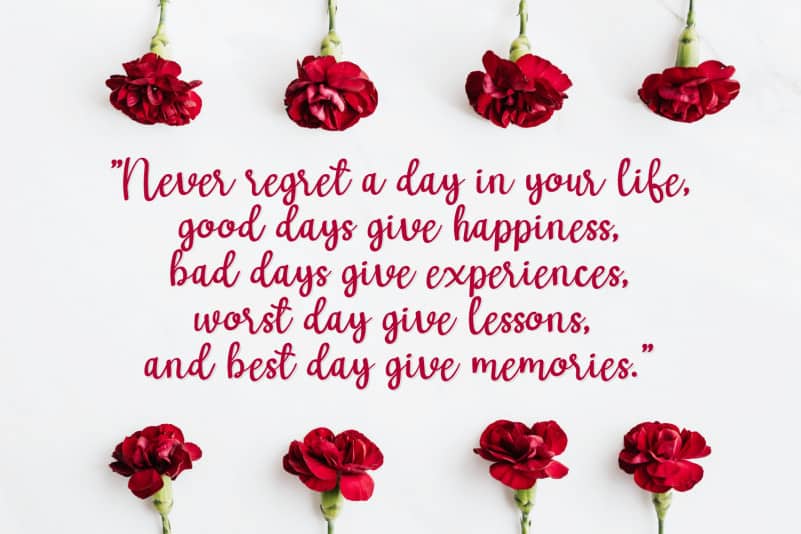
Minangrosa Handwritten Font is a delicate and flowing handwritten typeface. Fall in love with its incredibly versatile style and use it to create gorgeous wedding invitations, beautiful stationary art, eye-catching social media posts, and much more!